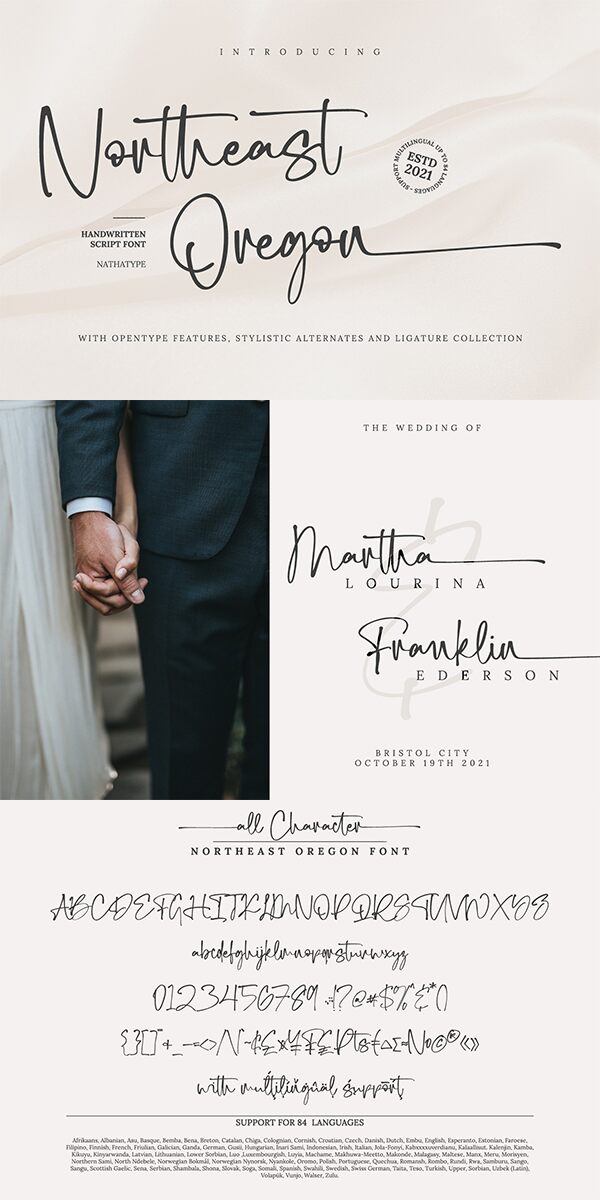
Northeast Oregon font by Din Studio is a light handwritten font with beautifully charming curves and patterns. Its casual elegance, fluid motion, and expressive character create a personalized touch that has an immediate impact. The typeface’s excellent overall design offers designers versatility for use in various sorts of creative graphic designs.
This free handwritten font is ideally used on branding projects, presentations, quotes, invitations, and other personal or commercial designs. Explore its excellence on headings and typography for websites. Test it on cover interior design magazines to see how much of a difference it makes!